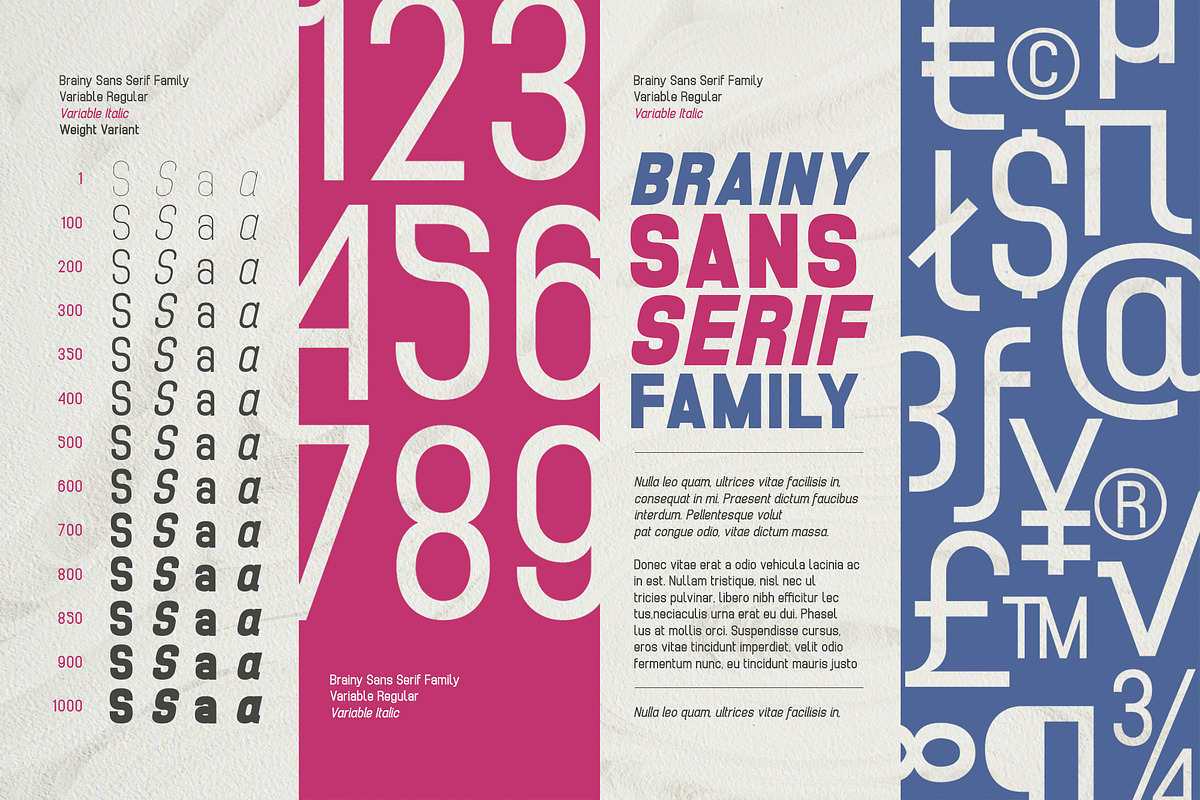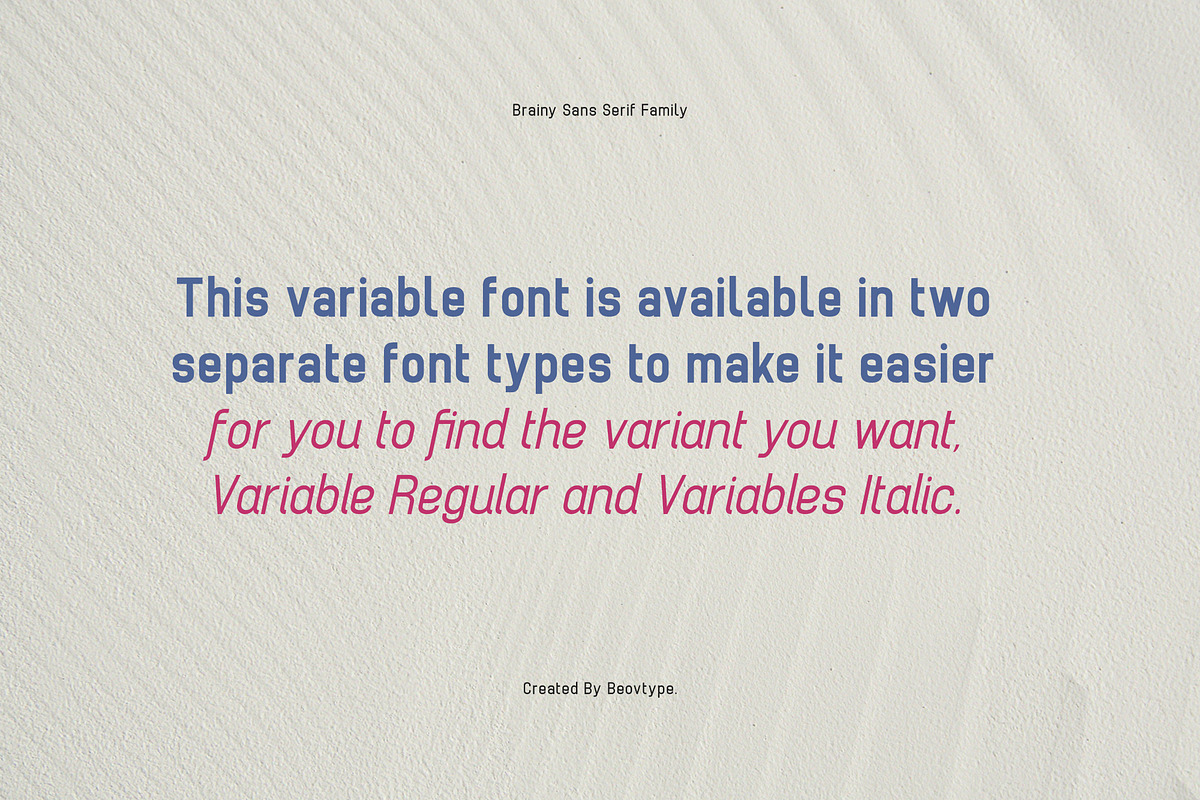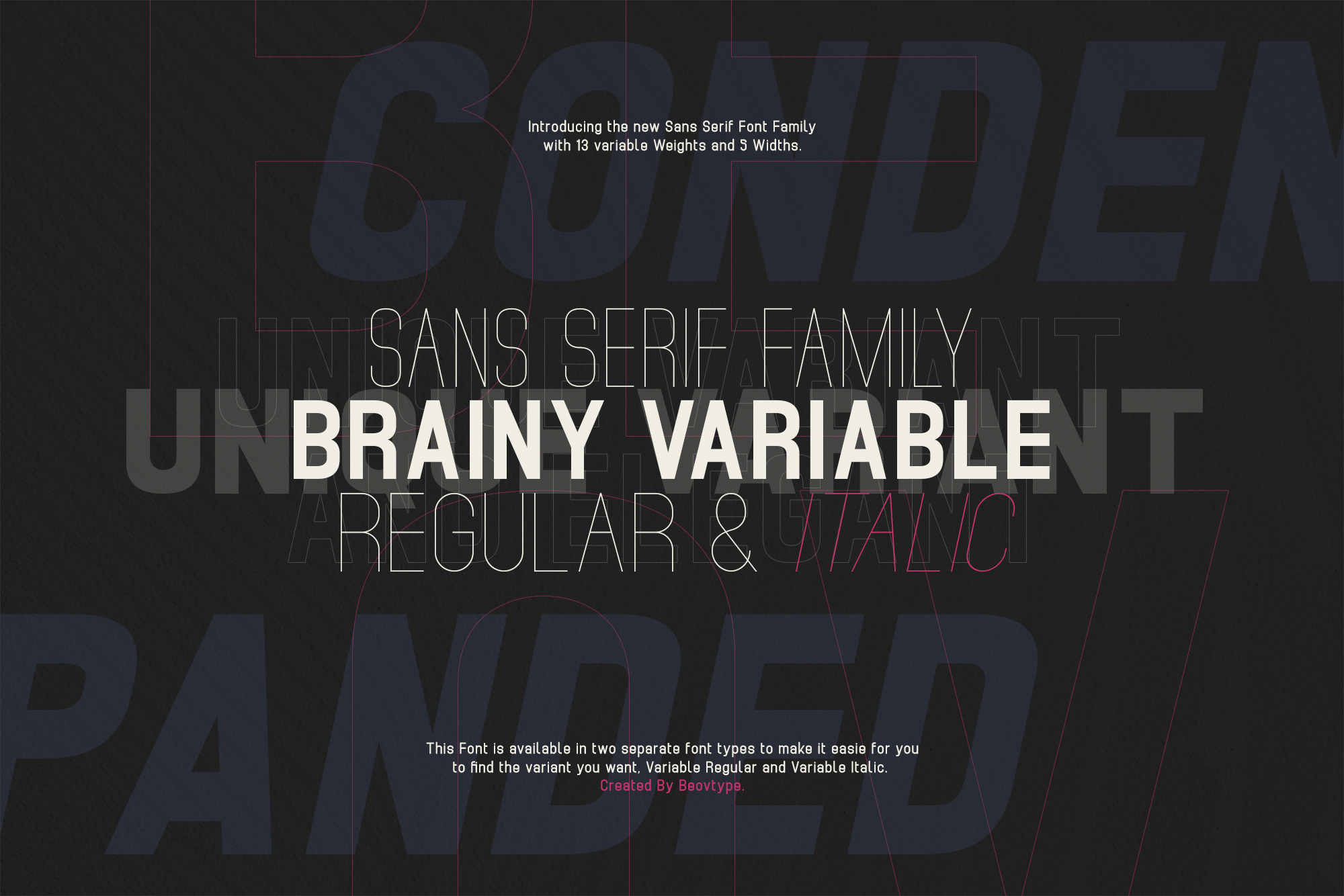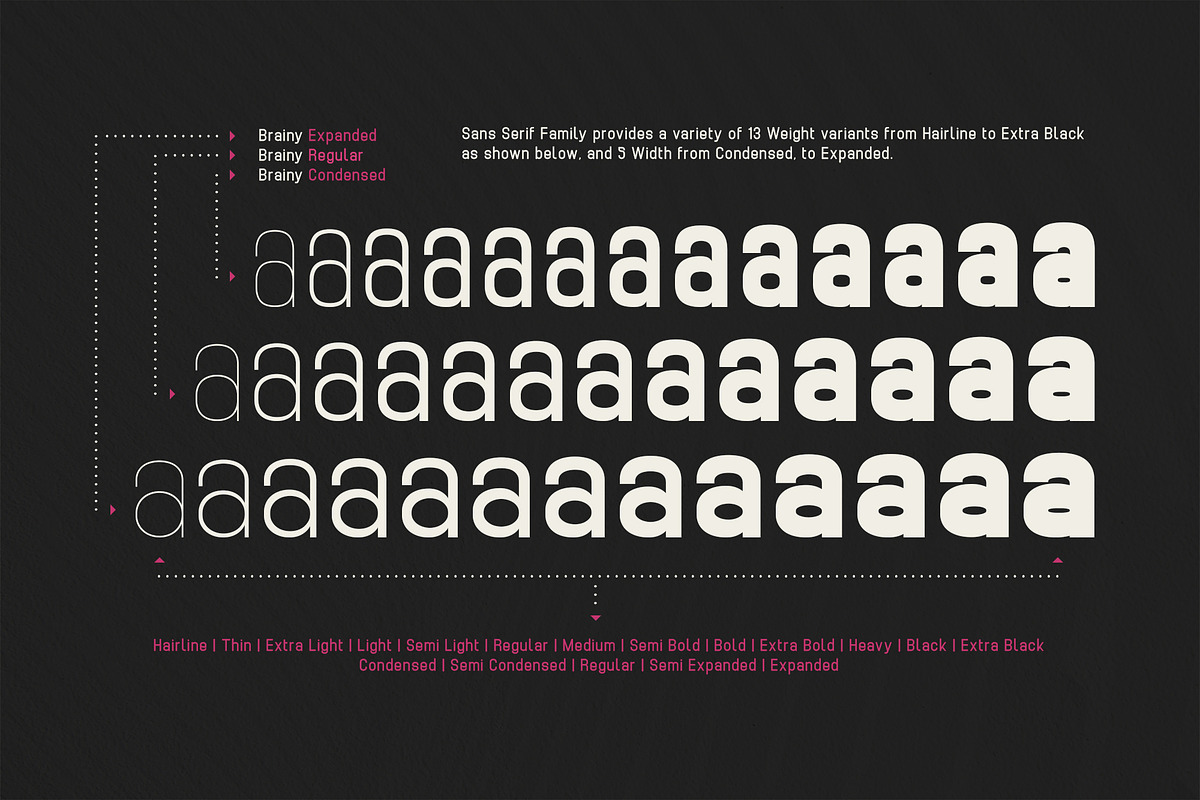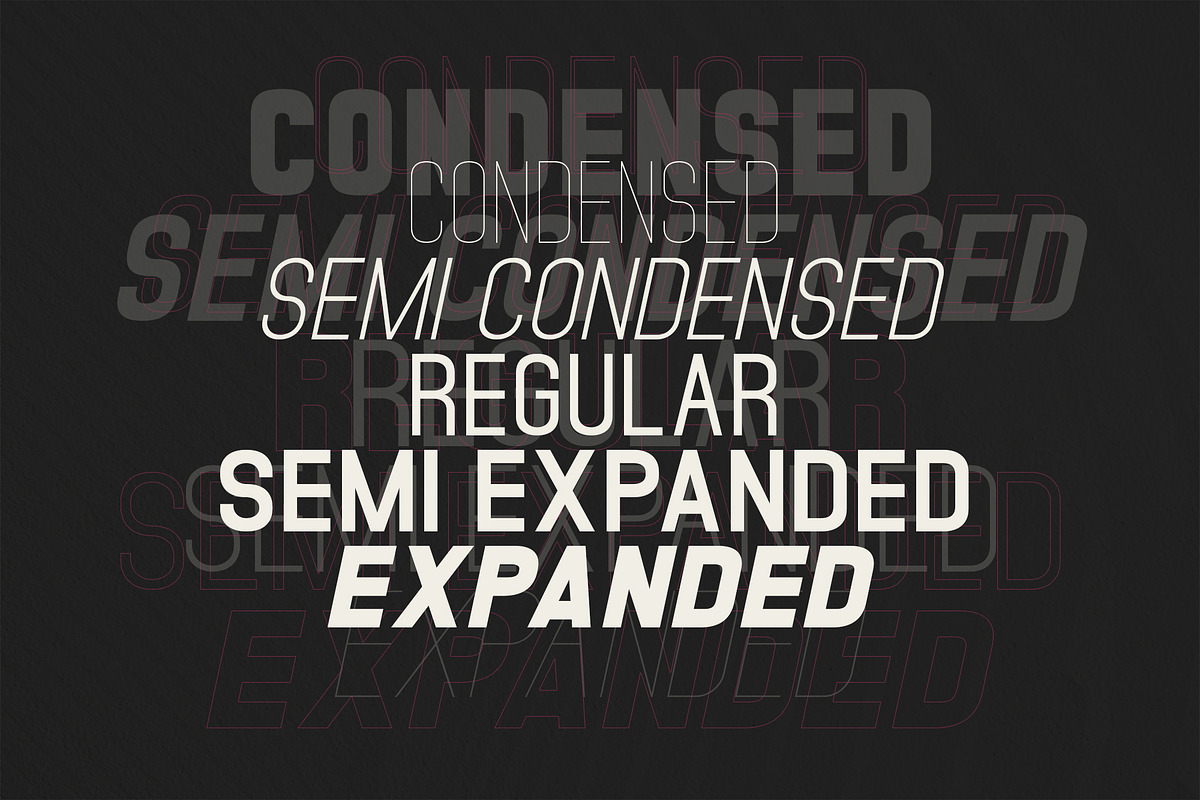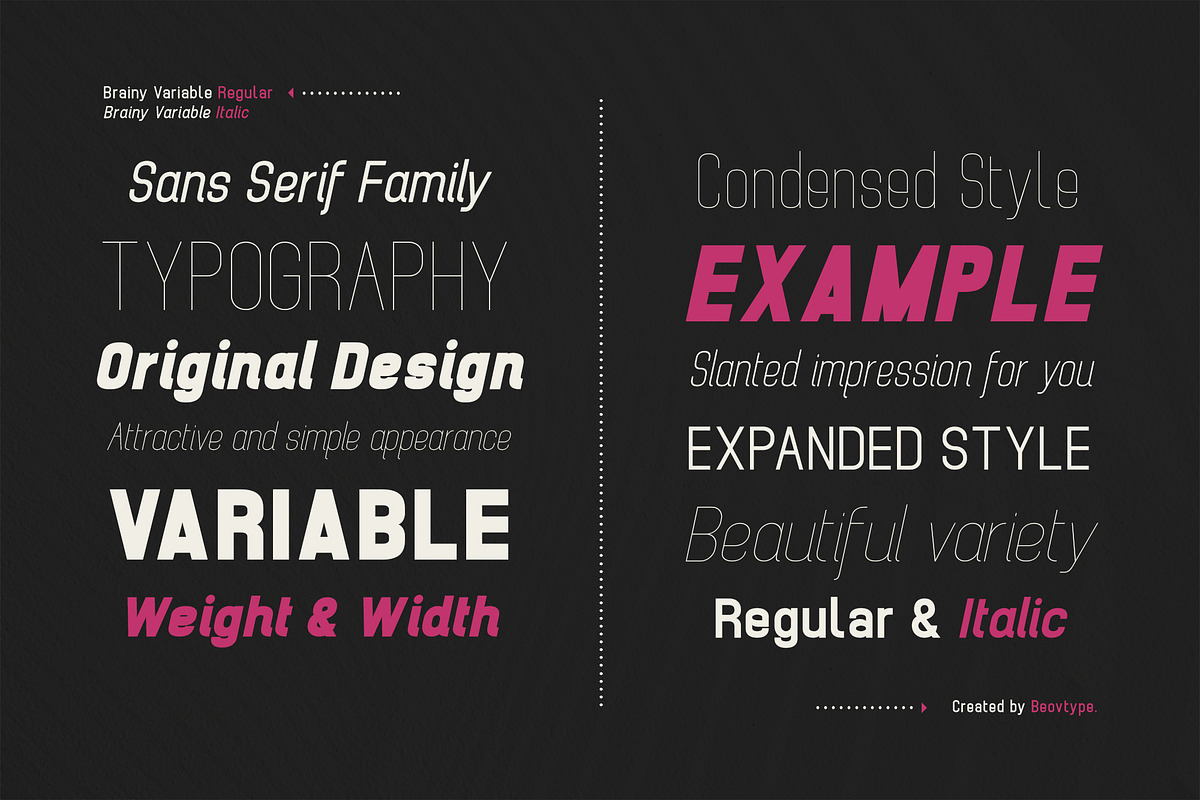
Brainy - Sans Serif (132 Fonts)
Introducing the new Sans Serif Font Family with 13 Weight and 5 Width variables.
This font is available in two separate font types for your convenience to find the desired variant, Regular Variable and Italic Variable.
Choose a font according to your needs to create Magazines, Brochures, Posters, Articles, Books, Logos or other Templates.